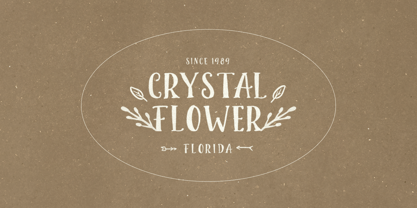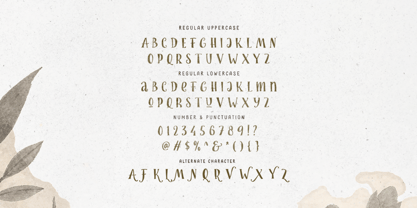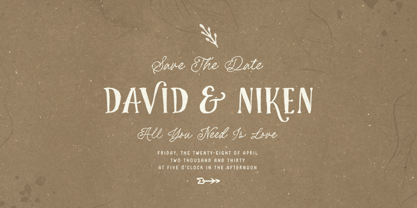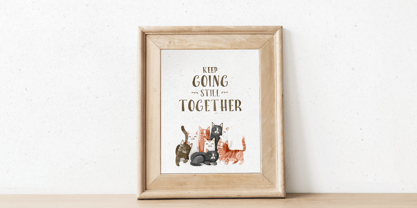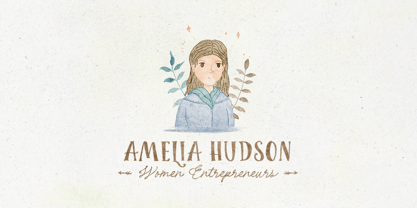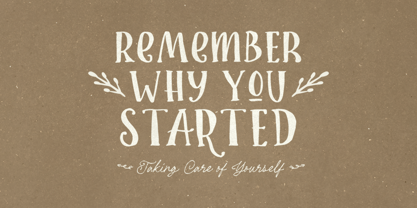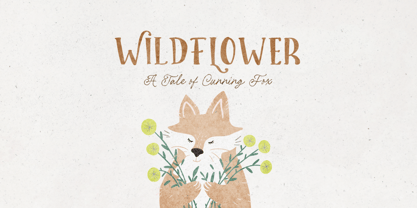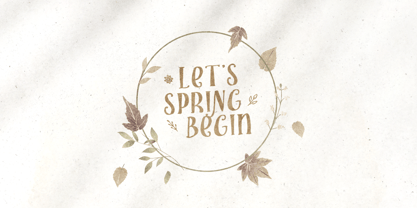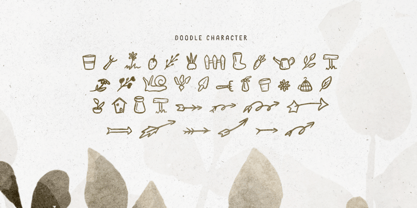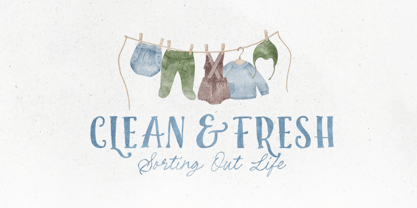
Foliage Story
by Bale Type
The Foliage Story Font Family was designed by Sarid Ezra, Dzikrul Aulia and published by Bale Type. Foliage Story contains 2 styles and family package options.
Foliage Story is a hand lettering serif with organic and natural looks. This font comes with bunch of doodle illustrations that will compliment the font. You can use the font along with the doodle for any purpose such as branding, vintage lettering, logo, wedding invitations, or even quotes. This font also support multi language!
Designers: Sarid Ezra, Dzikrul Aulia
Publisher: Bale Type
Foundry: Bale Type
Design Owner: Bale Type